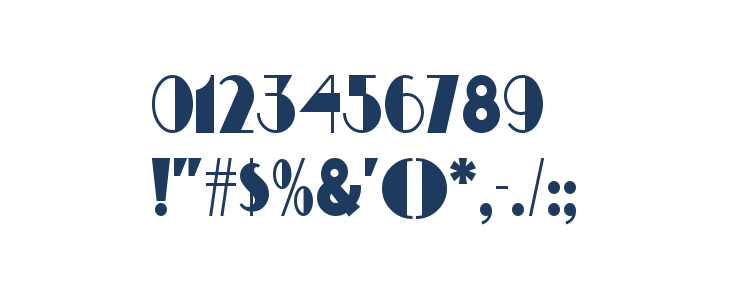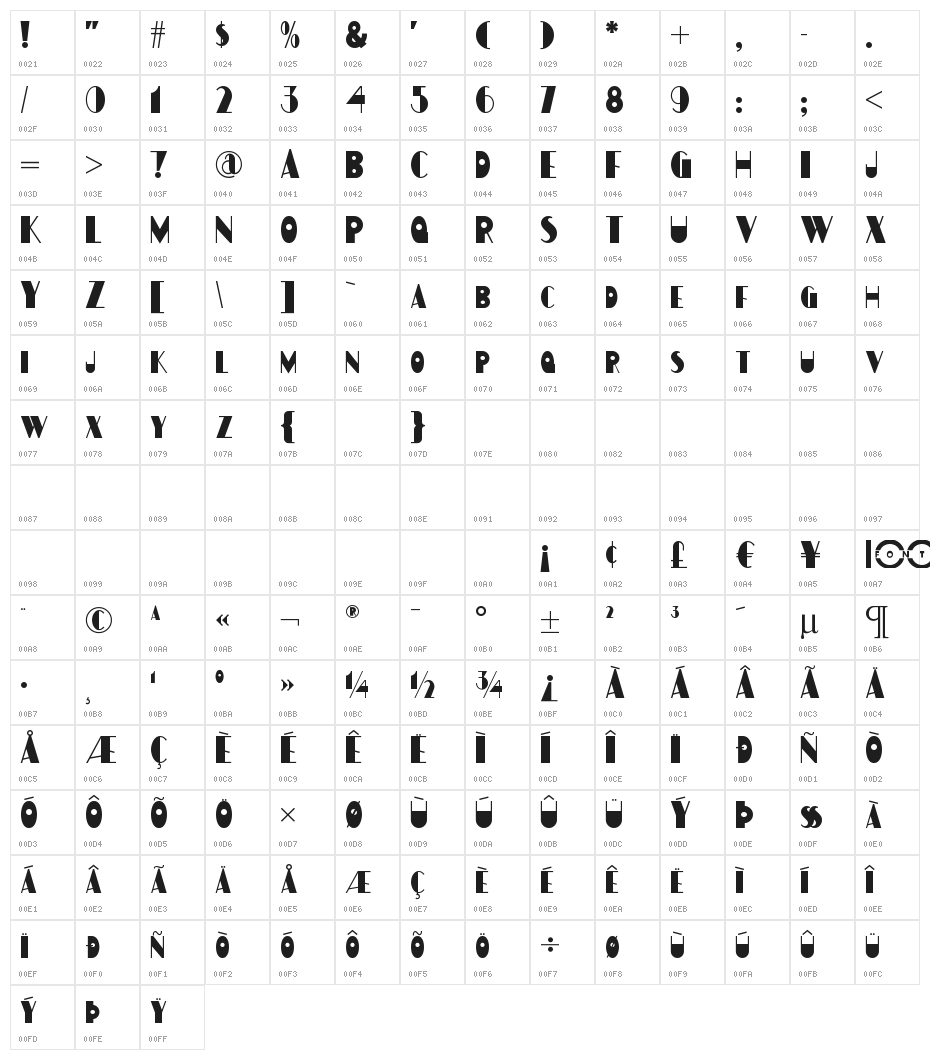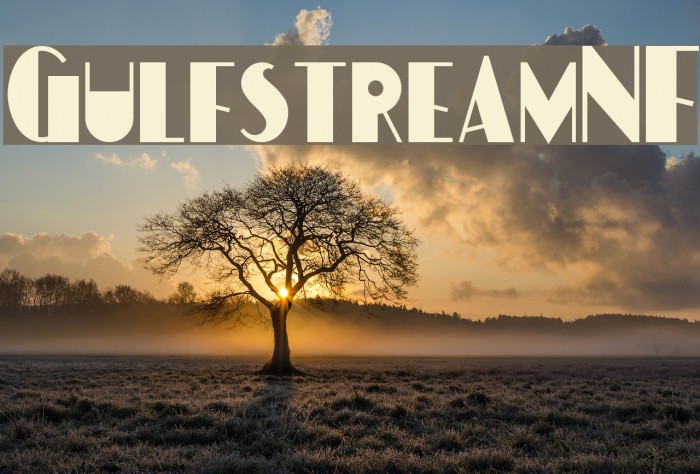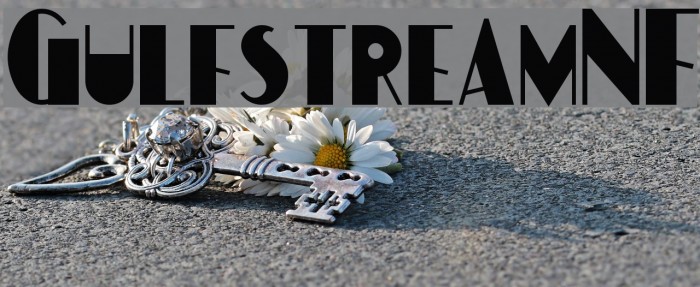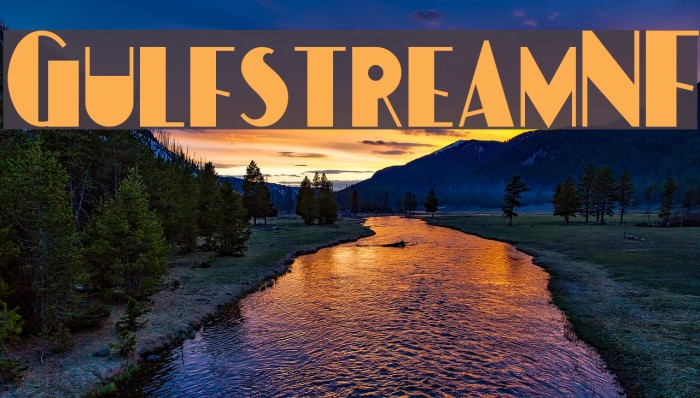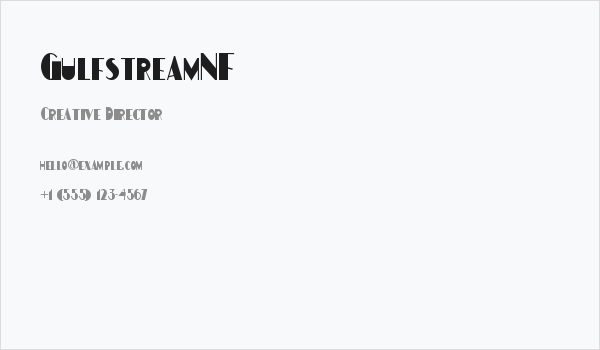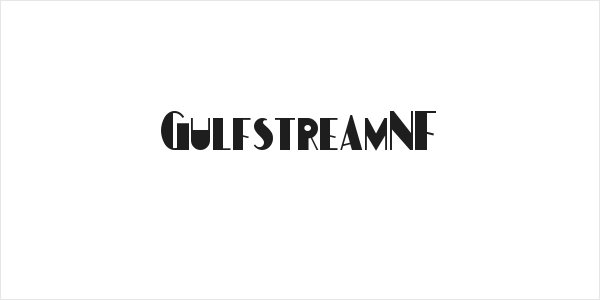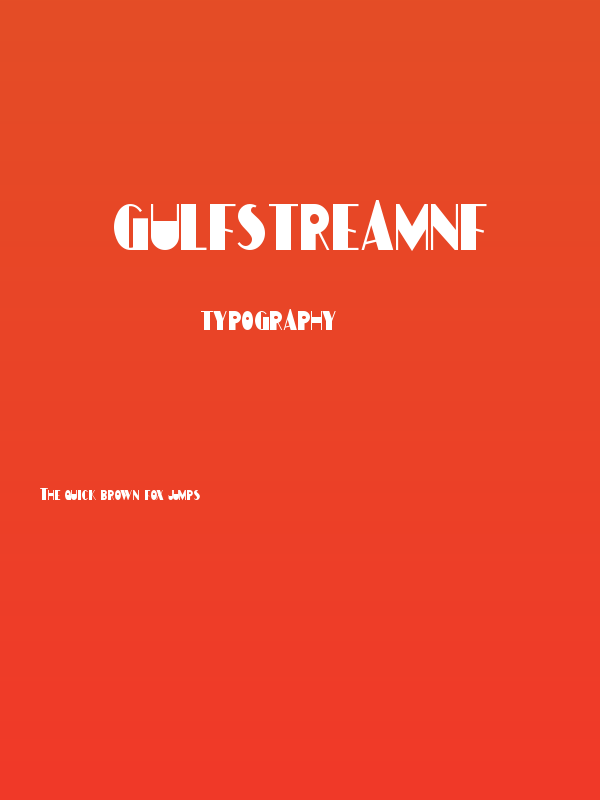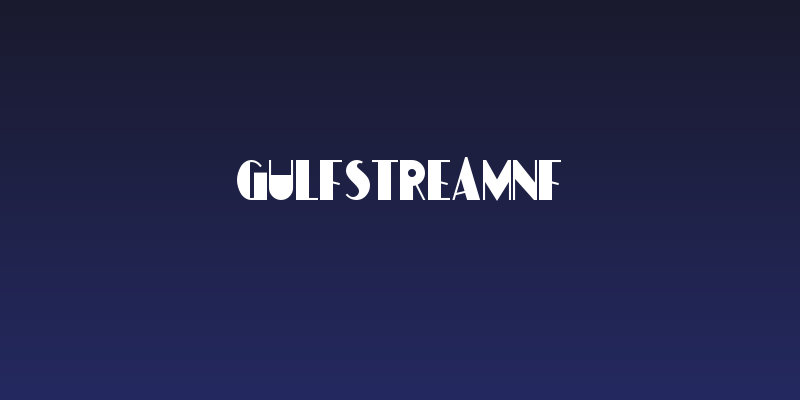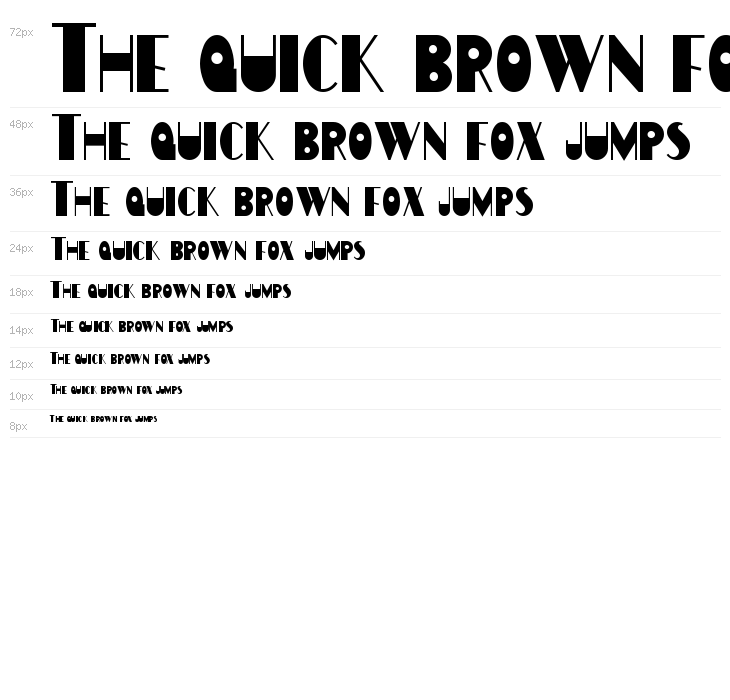
GulfstreamNF Font
GulfstreamNF Description
This font features a bold, geometric design with a strong Art Deco influence. The characters are constructed with sharp angles and clean lines, creating a sense of elegance and modernity. The uppercase letters are particularly striking, with unique cutouts and varying stroke widths that add visual interest. The numerals and special characters maintain the same bold and geometric style, ensuring consistency across all elements. This font's distinct style makes it ideal for projects that require a touch of sophistication and a nod to vintage design aesthetics.
| Proposed Projects | Ideal for branding, posters, and editorial design where a vintage yet modern look is desired. |